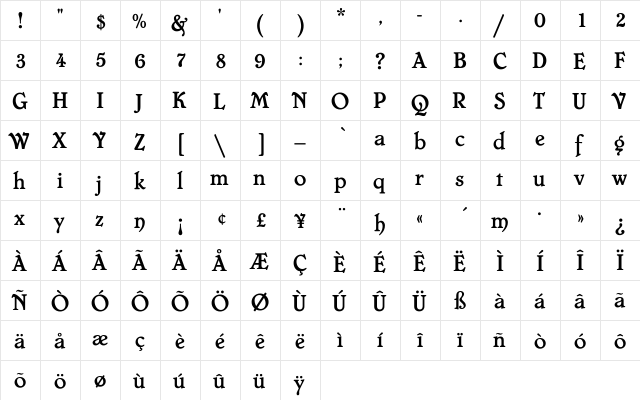
ChesterfieldEF Regular
Design Context for ChesterfieldEF Typeface
ChesterfieldEF is a composed and adaptable typeface that performs quietly and consistently across a wide range of design contexts.
Pro Tip: Pair ChesterfieldEF with a font of contrasting weight or personality to build a more expressive typographic hierarchy.